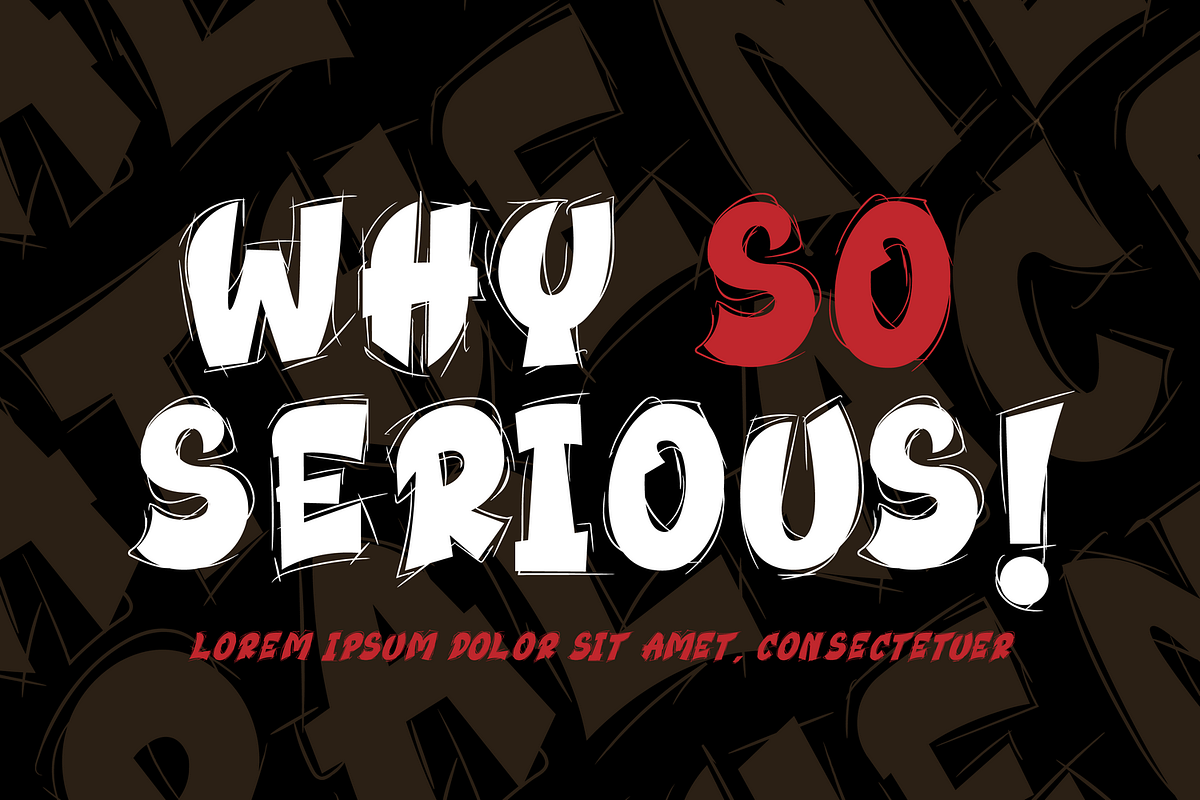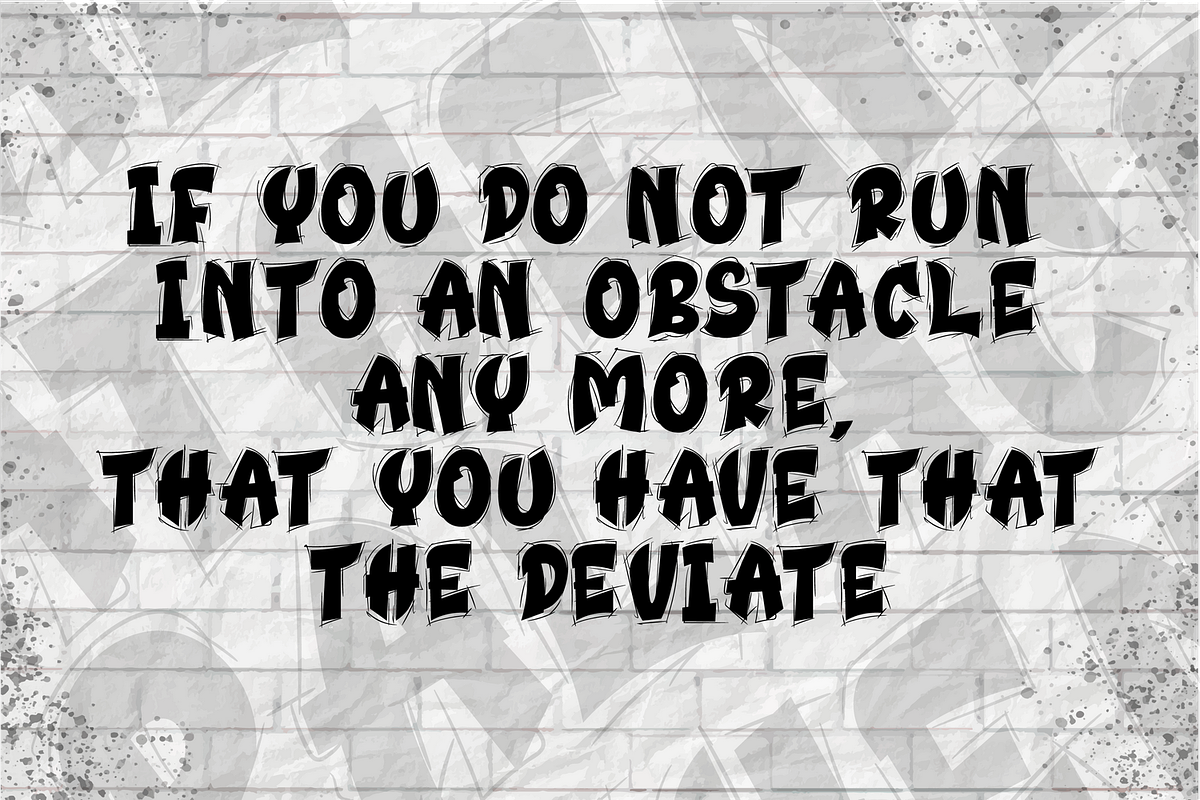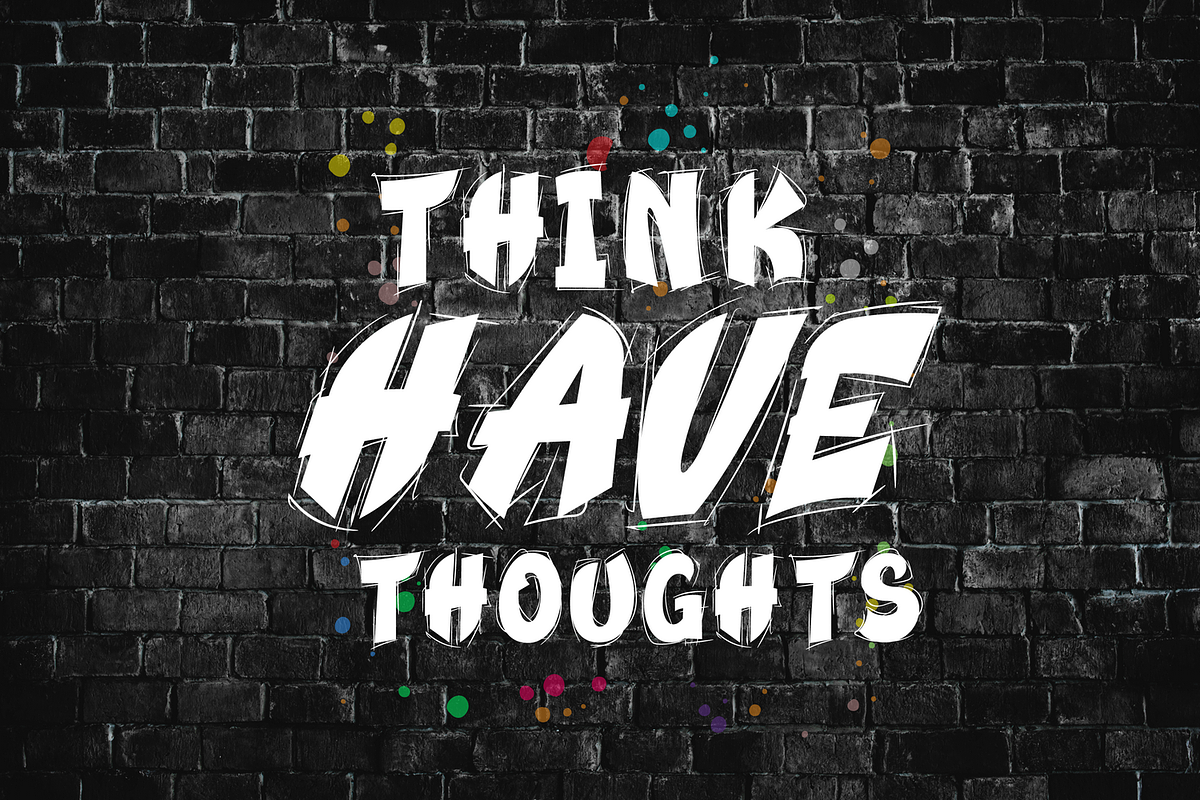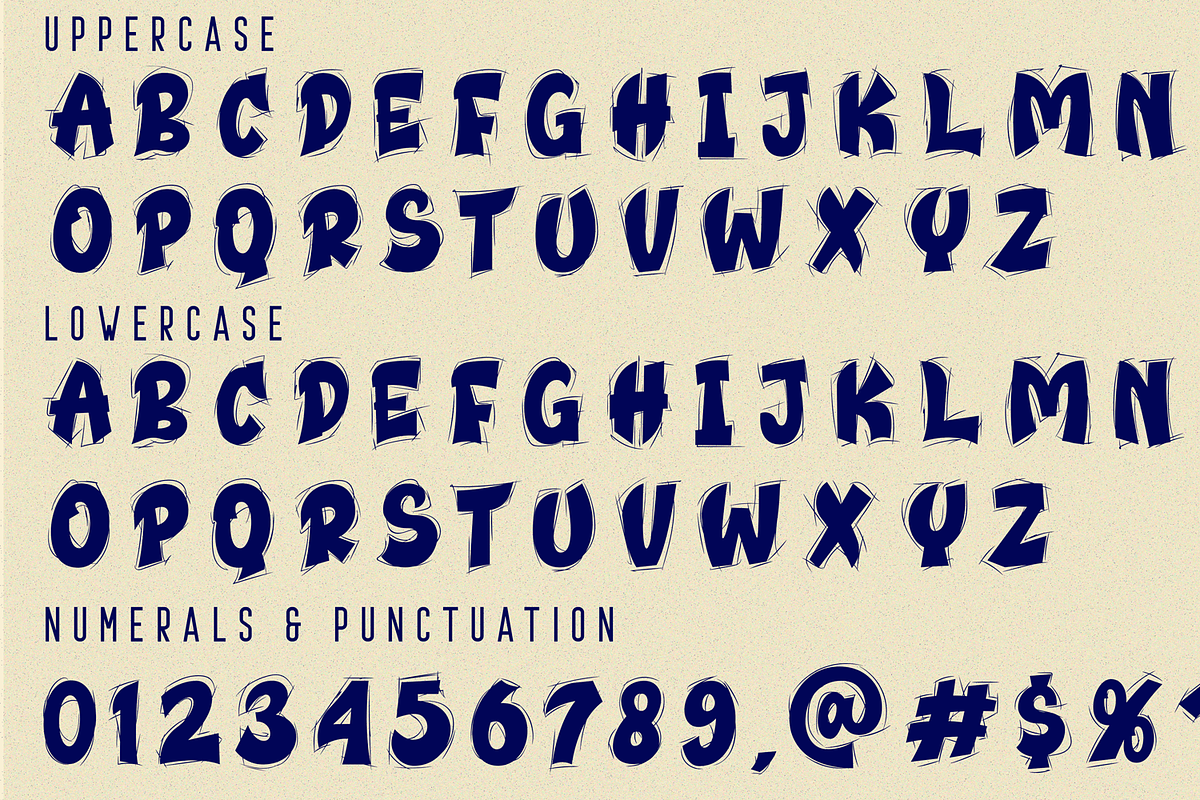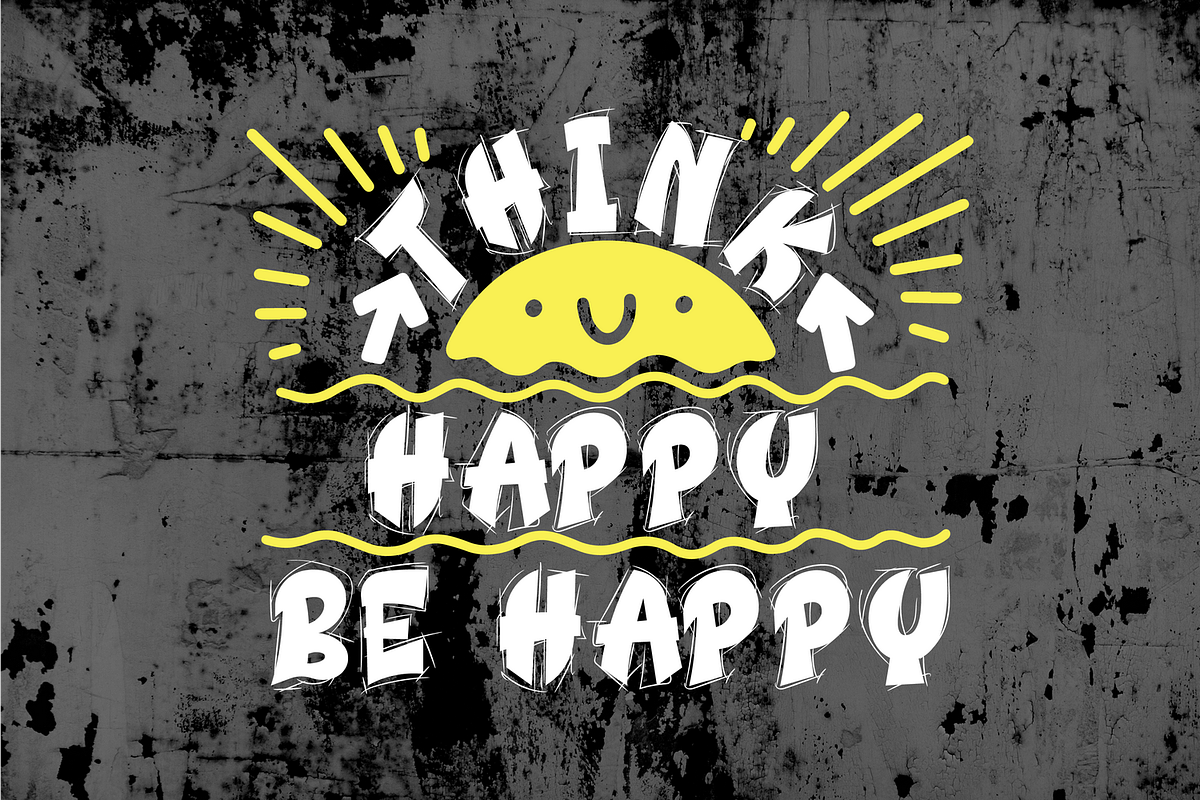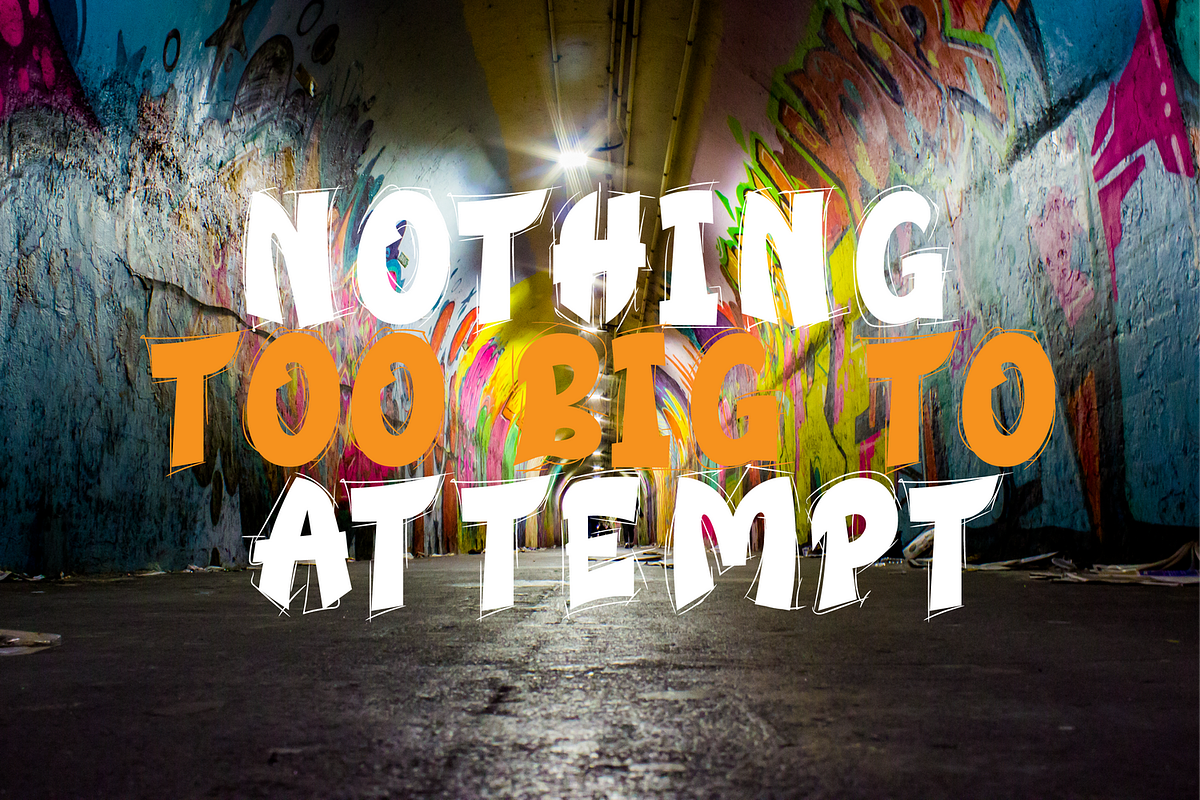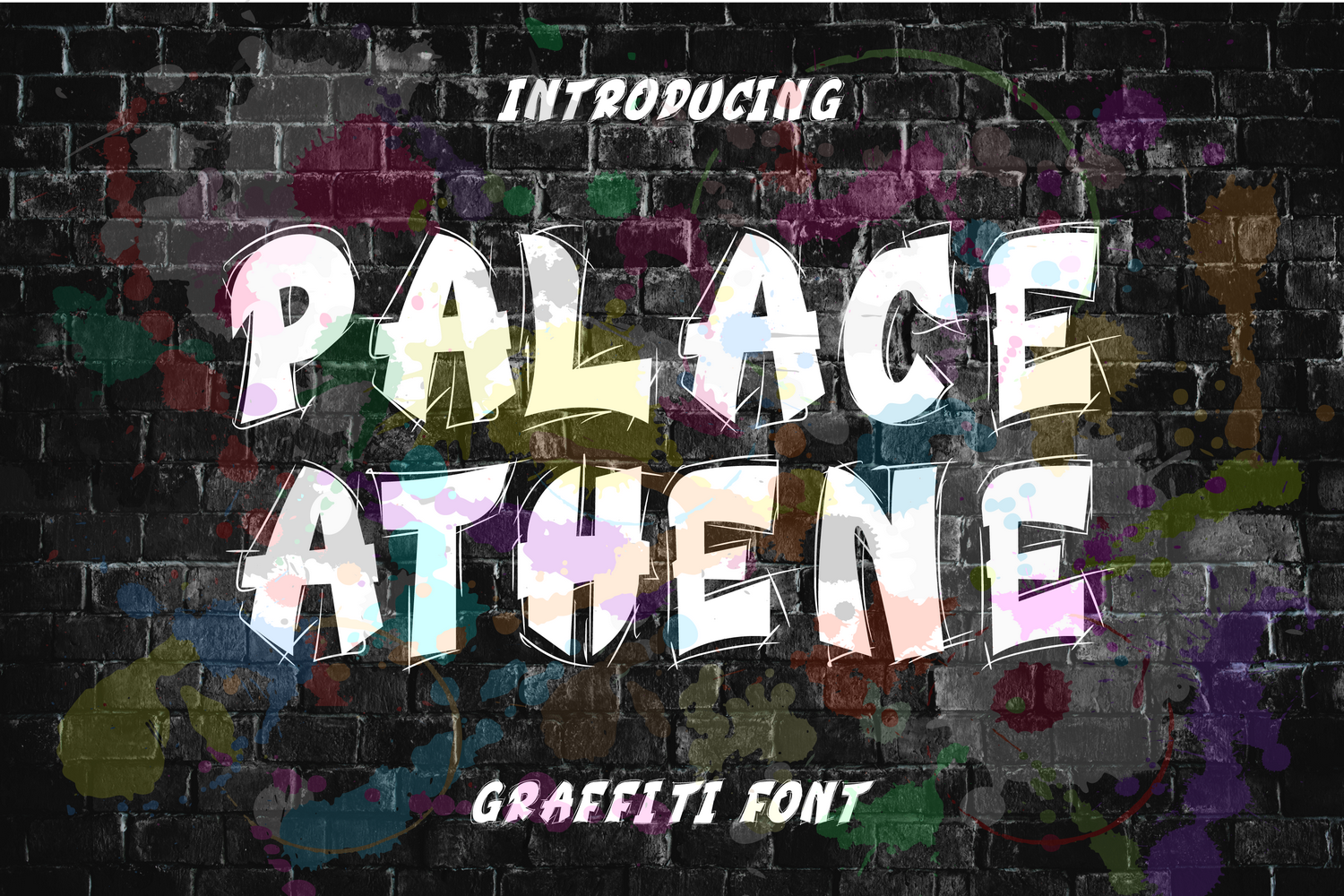
Palace Athene - Sketch Font
Palace Athene - Sketch Font a unique pen sketch script style! Crafted with pen, sketched to script style. It's a fun display font that has a scribble effect. Whimsical and a bit quirky, this font will brighten up each of your designs. Add it confidently to your projects, and you will love the results. It will give fresh look for your design, because this style is rare. This typeface will nice font title or subtitle in YouTube thumbnail, book, magazine, flyer, etc.